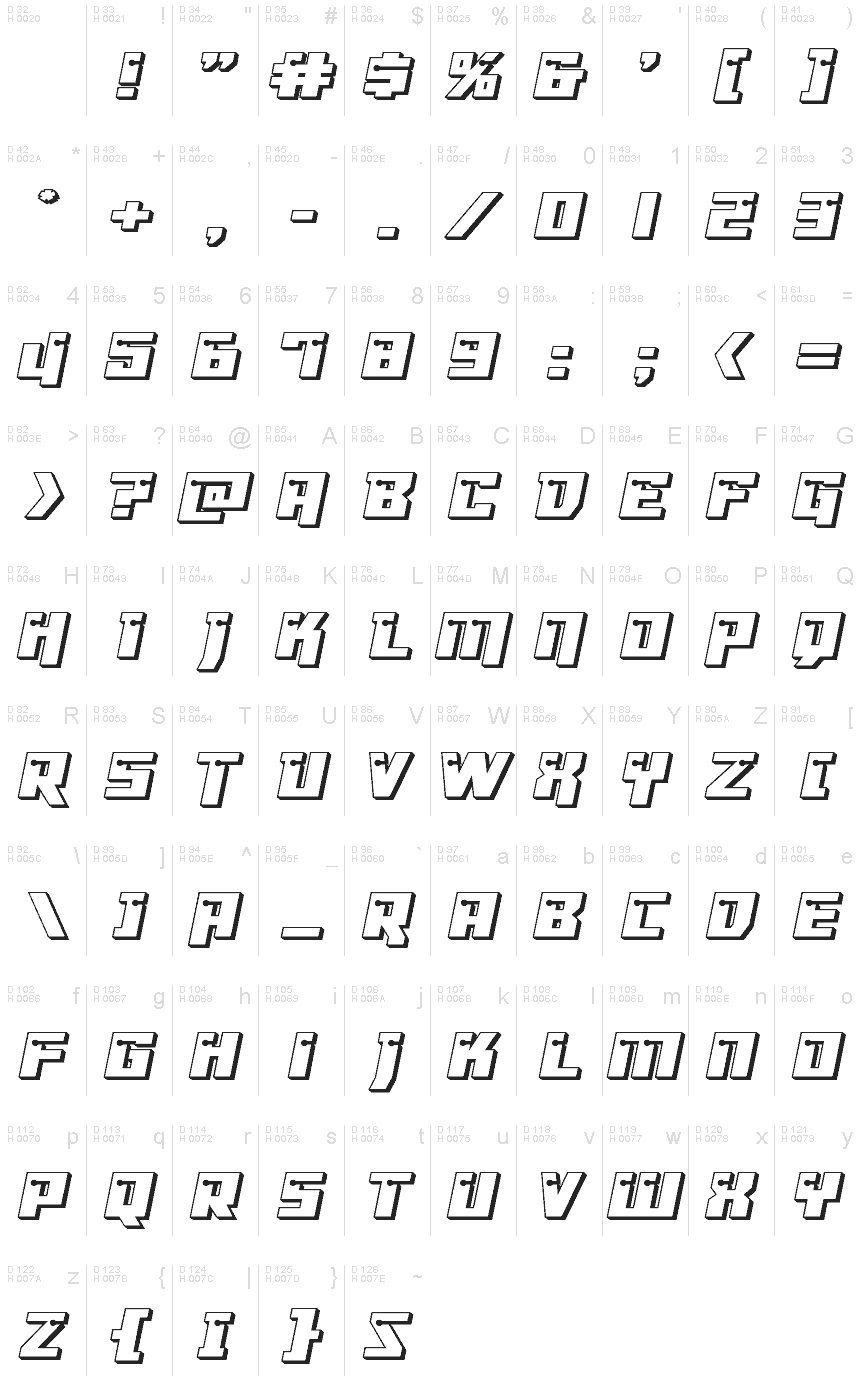
Dangerbot 3D Expanded
Dangerbot 3D Expanded font by Iconian Fonts is a 3D futuristic display typeface that showcases a bold, expanded style. The font has an angular, geometric, and mechanical design which gives it an industrial vibe. Its modern aesthetic makes it ideal for today’s trendy projects, whether professional or artistic.